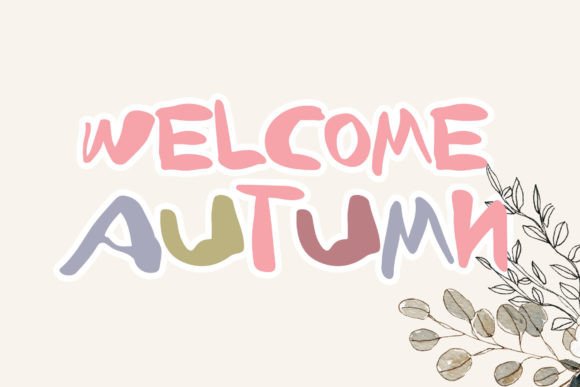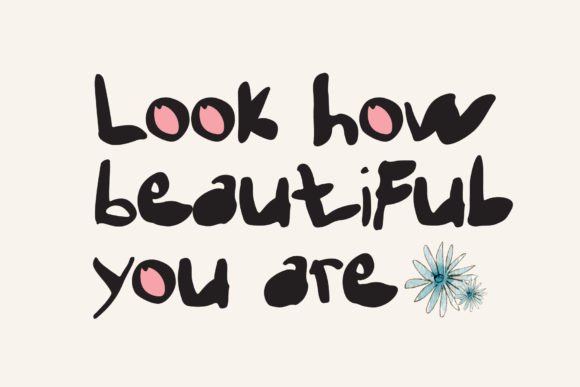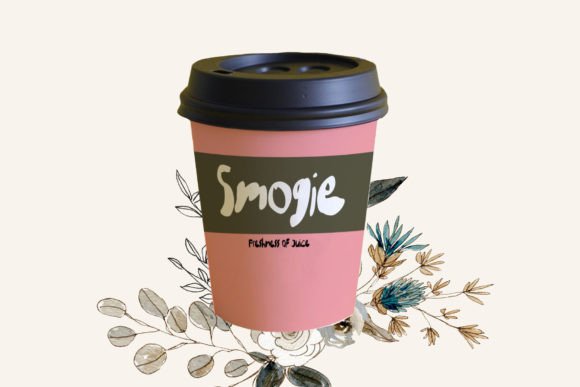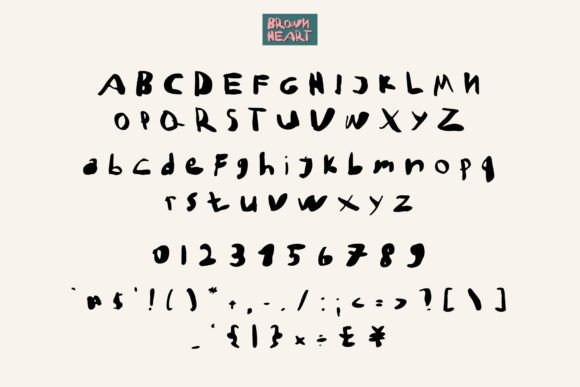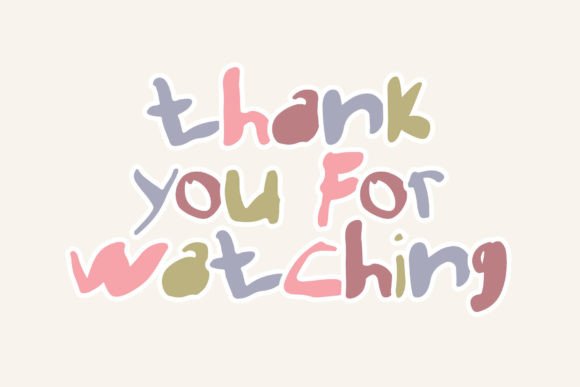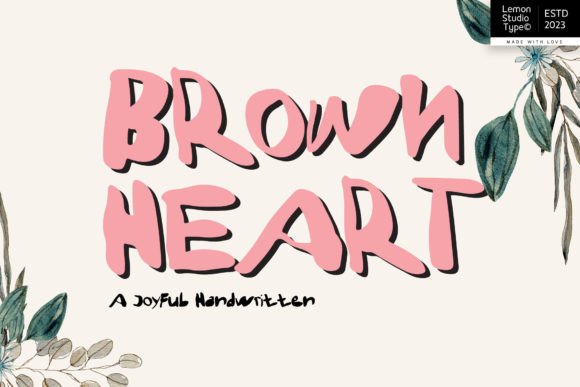
Brown Heart Font: The Perfect Addition to Your Design Projects
Are you on the hunt for a font that adds a touch of whimsy and playfulness to your design projects? Look no further than the Brown Heart Font! This delightful, free-hand style handwritten font is sure to capture the hearts of designers and crafters alike. In this article, we’ll dive into the world of Brown Heart Font, exploring its features, uses, and benefits.
What is Brown Heart Font?
Brown Heart Font is a joyful sans-serif font that’s perfect for adding a personal touch to your designs. Its free-hand style handwritten aesthetic gives it a charming, organic feel that’s ideal for a wide range of projects. Whether you’re creating birthday invitations, mockups, book covers, posters, or any other design element, Brown Heart Font is sure to bring a smile to your audience’s faces.
Key Features of Brown Heart Font
- Cute and playful design: Brown Heart Font boasts a delightful, hand-drawn aesthetic that’s perfect for designers who want to add a touch of whimsy to their work.
- Free-hand style: The font’s free-hand style gives it a unique, organic feel that’s perfect for creating designs that feel personal and approachable.
- Sans-serif: The font’s sans-serif design makes it easy to read and versatile enough to use in a wide range of projects.
- Handwritten feel: Brown Heart Font has a lovely handwritten feel that’s perfect for creating designs that feel warm and inviting.
Uses for Brown Heart Font
Brown Heart Font is an incredibly versatile font that can be used in a wide range of design projects, including:
- Birthday invitations: Add a touch of whimsy to your birthday invitations with Brown Heart Font.
- Mockups: Use Brown Heart Font to create eye-catching mockups that showcase your design skills.
- Book covers: Brown Heart Font is perfect for creating eye-catching book covers that appeal to readers of all ages.
- Posters: Use Brown Heart Font to create bold, eye-catching posters that grab attention.
- Social media graphics: Add a touch of personality to your social media graphics with Brown Heart Font.
Benefits of Using Brown Heart Font
So why should you choose Brown Heart Font for your design projects? Here are just a few benefits:
- Adds a personal touch: Brown Heart Font’s handwritten feel adds a personal touch to your designs, making them feel more approachable and engaging.
- Increases creativity: The font’s playful design encourages creativity and experimentation, helping you to think outside the box.
- Versatile: Brown Heart Font is versatile enough to use in a wide range of projects, from birthday invitations to book covers.
- Easy to read: The font’s sans-serif design makes it easy to read, even at small sizes.
Tips for Using Brown Heart Font
Here are a few tips for getting the most out of Brown Heart Font:
- Experiment with colors: Brown Heart Font looks great in a wide range of colors, so don’t be afraid to experiment and find the perfect hue for your design.
- Mix and match: Try pairing Brown Heart Font with other fonts to create a unique and eye-catching design.
- Use it for headings: Brown Heart Font is perfect for headings and titles, adding a touch of whimsy to your design.
| Font Name | Brown Heart Font |
| Author | WildaKhairunnisa |
In conclusion, Brown Heart Font is a delightful, free-hand style handwritten font that’s perfect for designers and crafters who want to add a touch of whimsy to their work. Its playful design, versatility, and ease of use make it an excellent choice for a wide range of projects. So why not give Brown Heart Font a try and see how it can elevate your designs?